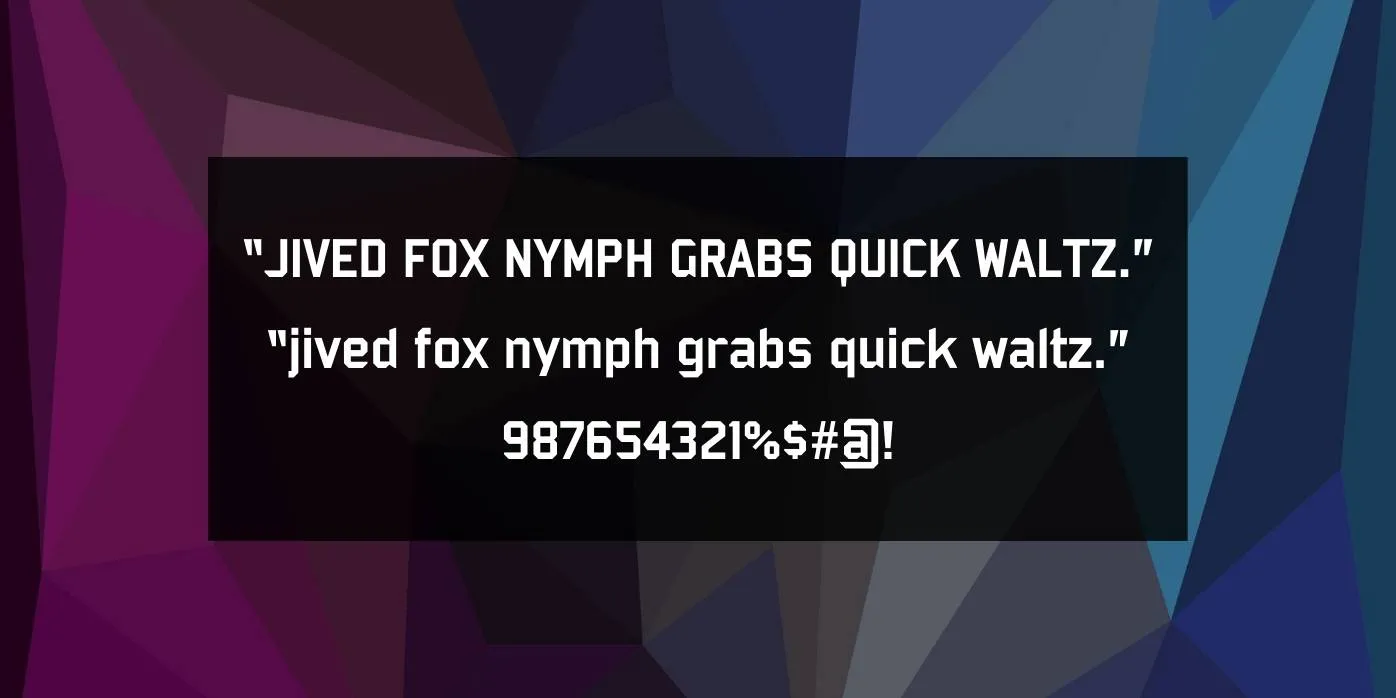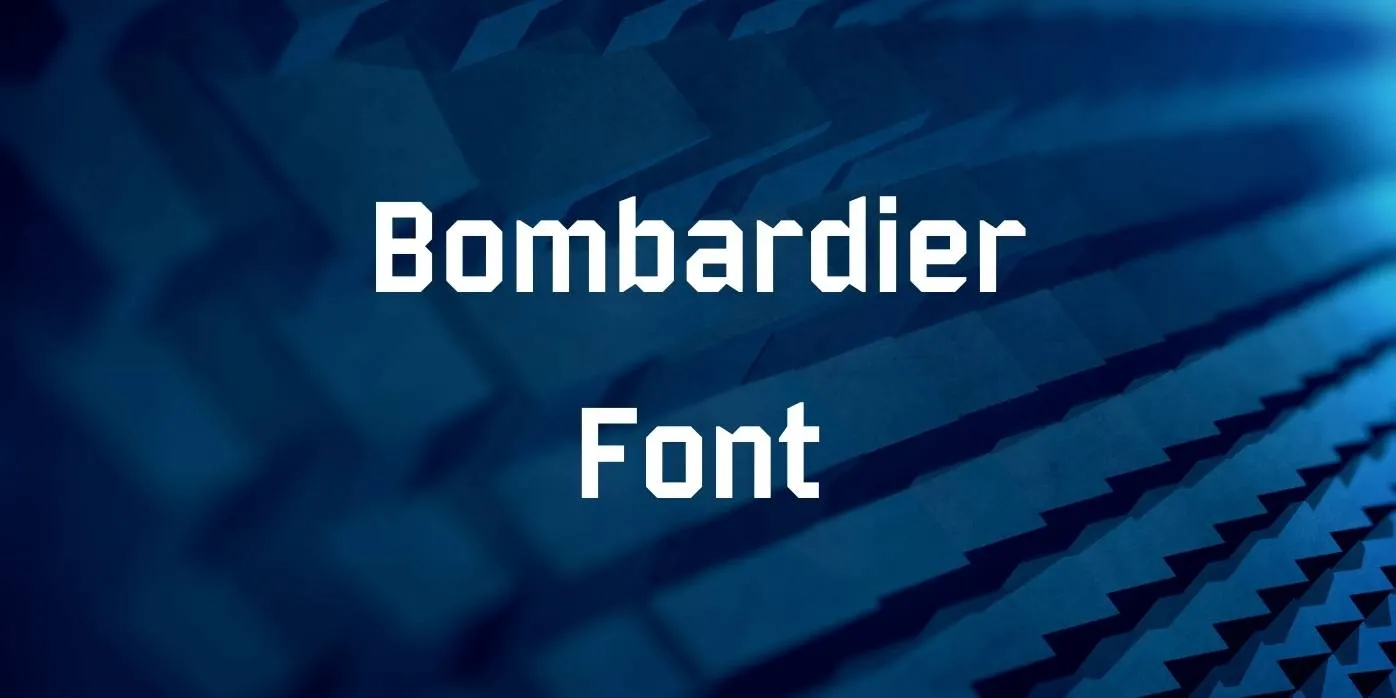
Bombardier Font
Bombardier Font was developed and published by Apostrophic Labs. This classy typeface belongs to the fancy family.  It was released on May 10, 2005. The designer took inspiration from vintage aircraft while creating this font. This sans-serif typeface has a unique appearance.
It is perfect for making headlines and logos. This versatile font has gained popularity in a very short time. You can use it for both personal and commercial purposes. Bombardier Typeface supports Latin, Cyrillic, and Greek languages.
You can use this tool to create logos and other graphics. Bombardier Font is a great choice for making website headers and print designs.